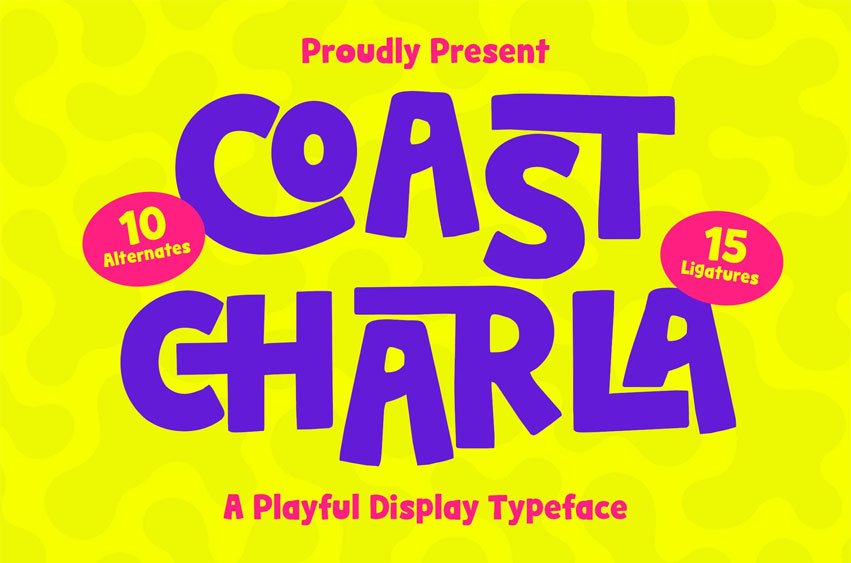
Coast Charla Font is a bold and playful display typeface designed to deliver joyful energy and expressive character in modern typography. Featuring chunky letterforms, soft curves, and lively proportions, this font instantly grabs attention while maintaining strong readability.
Inspired by fun editorial graphics, cheerful branding, and contemporary pop design, Coast Charla brings a vibrant personality that feels friendly, energetic, and approachable. The slightly irregular shapes create a handcrafted feel, making every word appear lively and full of character.
Coast Charla comes with 10 alternates and 15 ligatures, giving designers the flexibility to create dynamic typographic compositions with natural variation and unique combinations. These features allow creative layouts while keeping the playful spirit of the typeface intact.